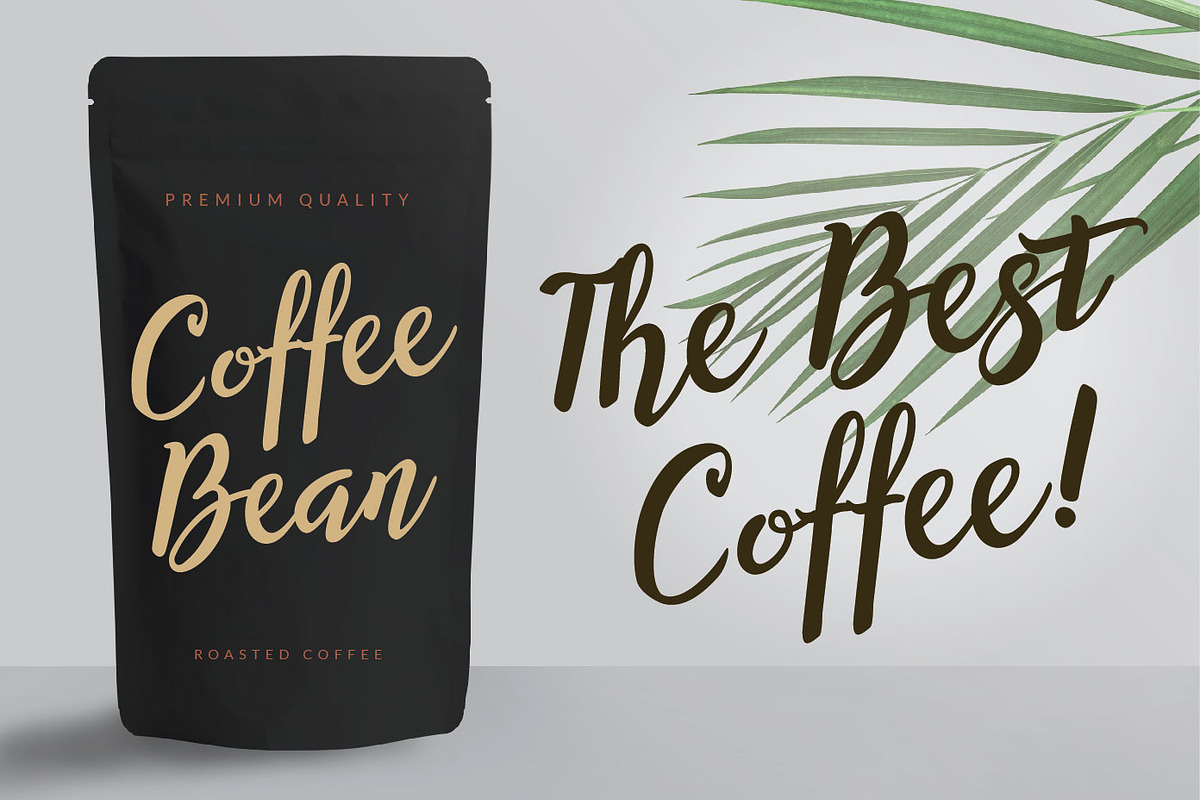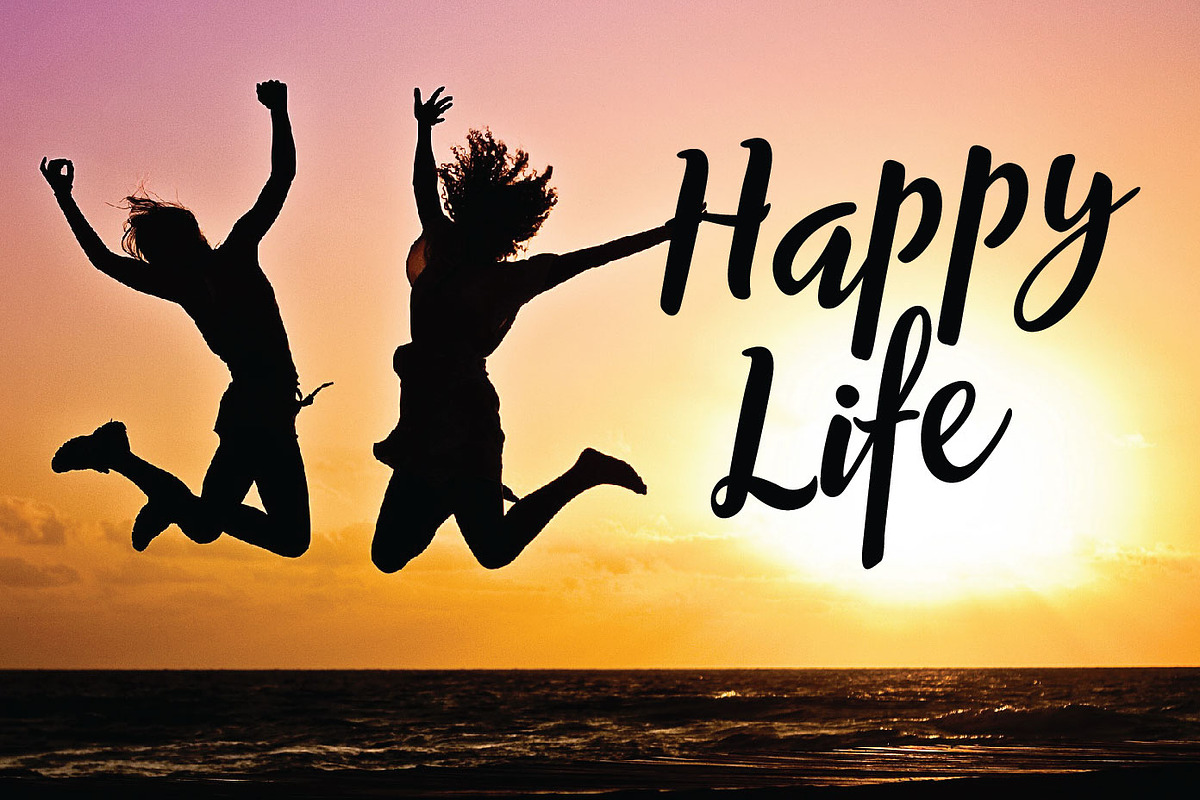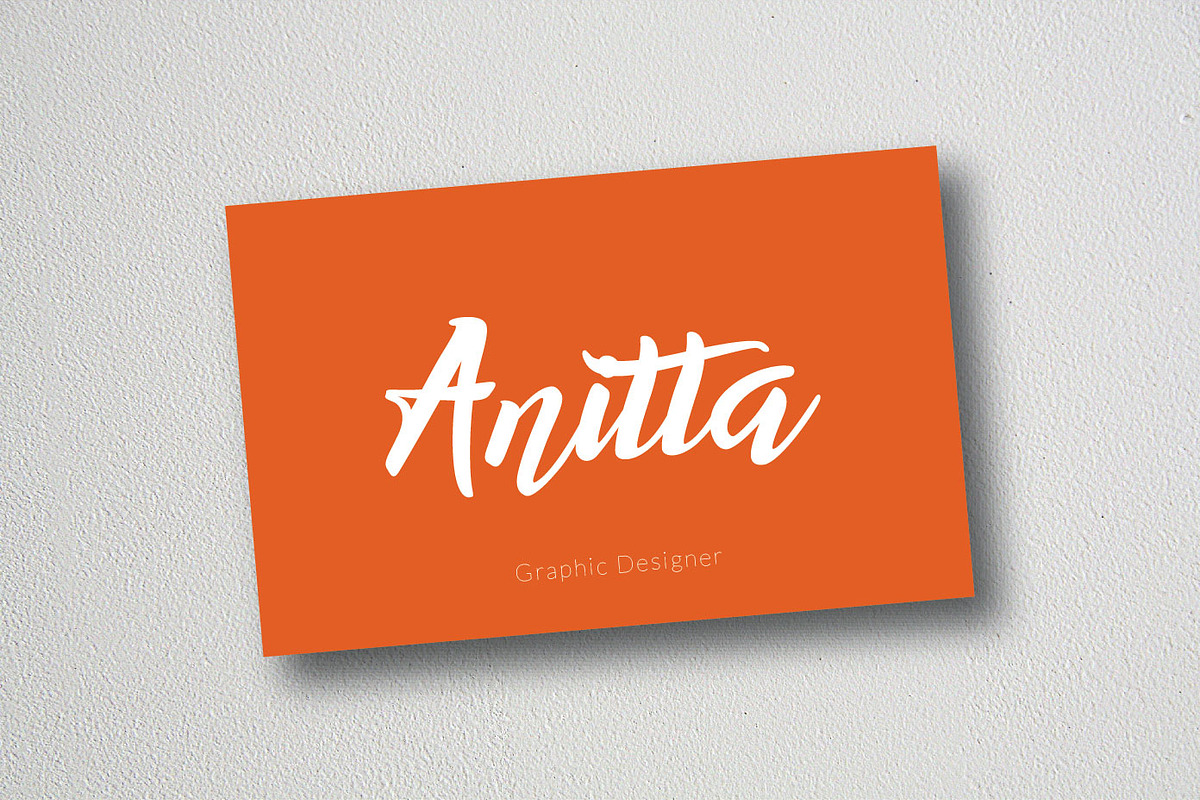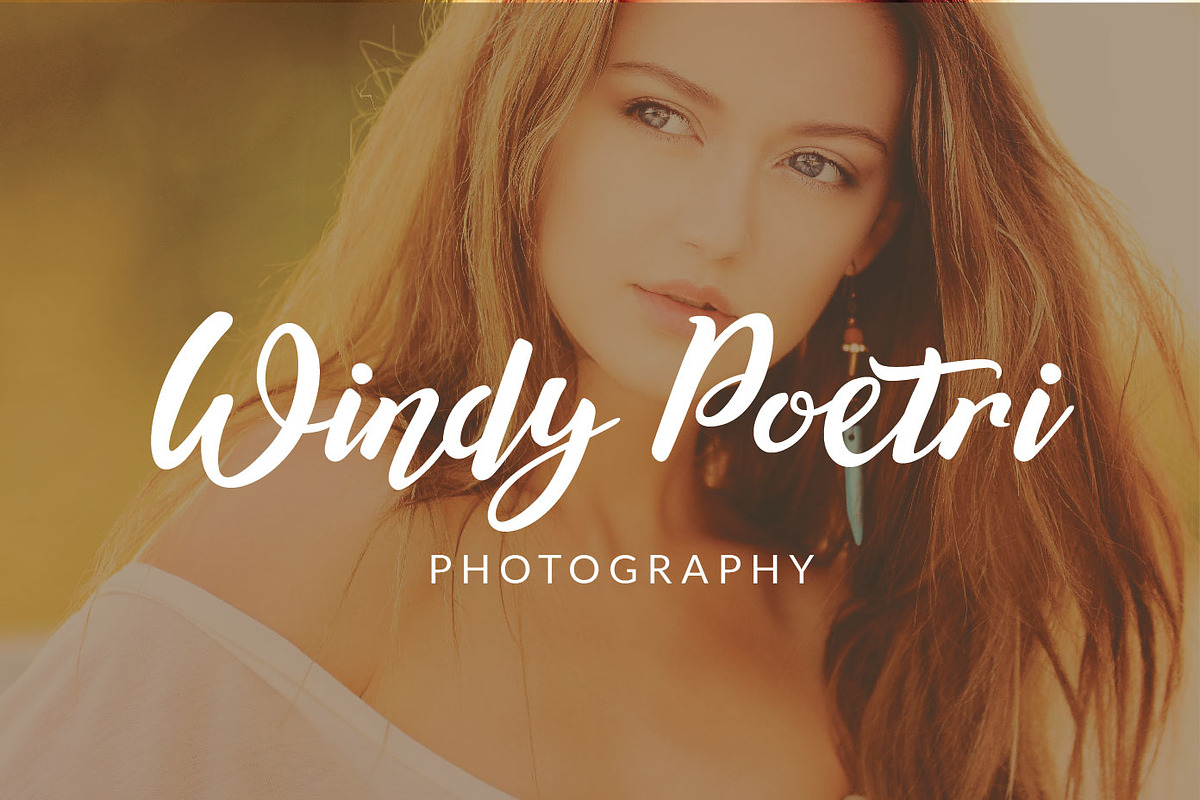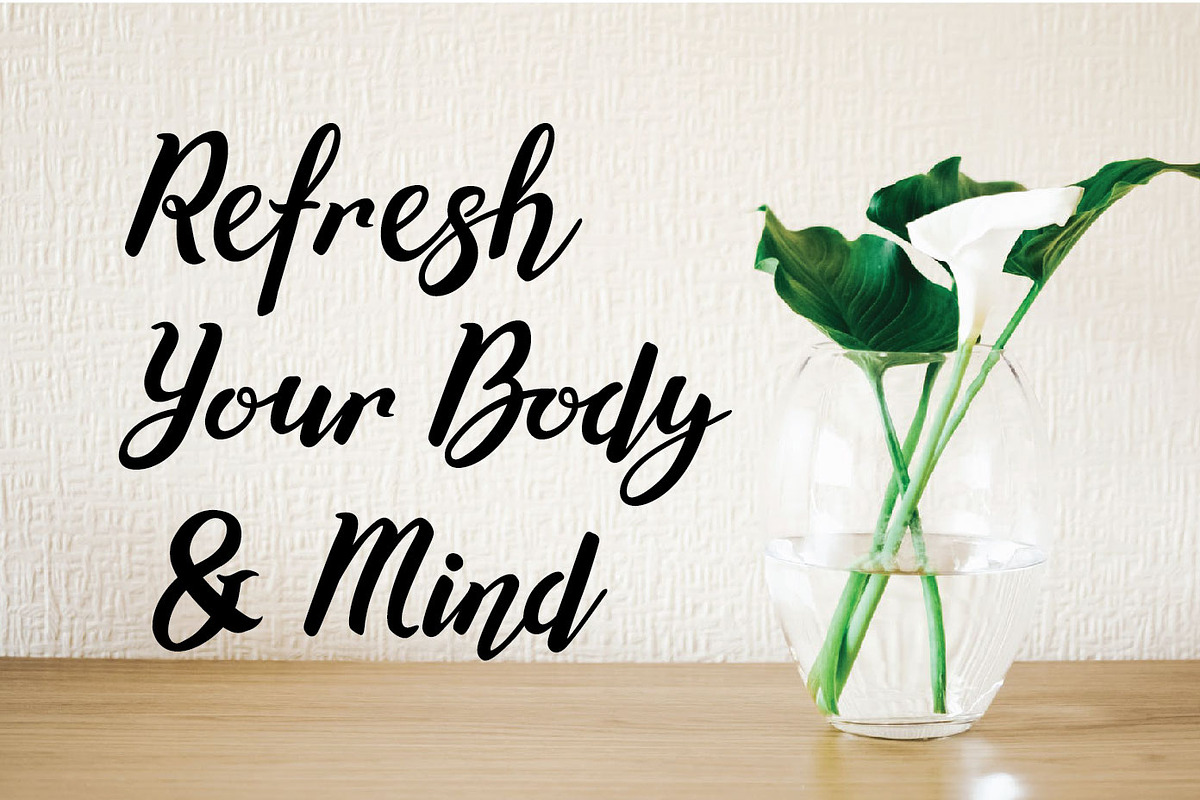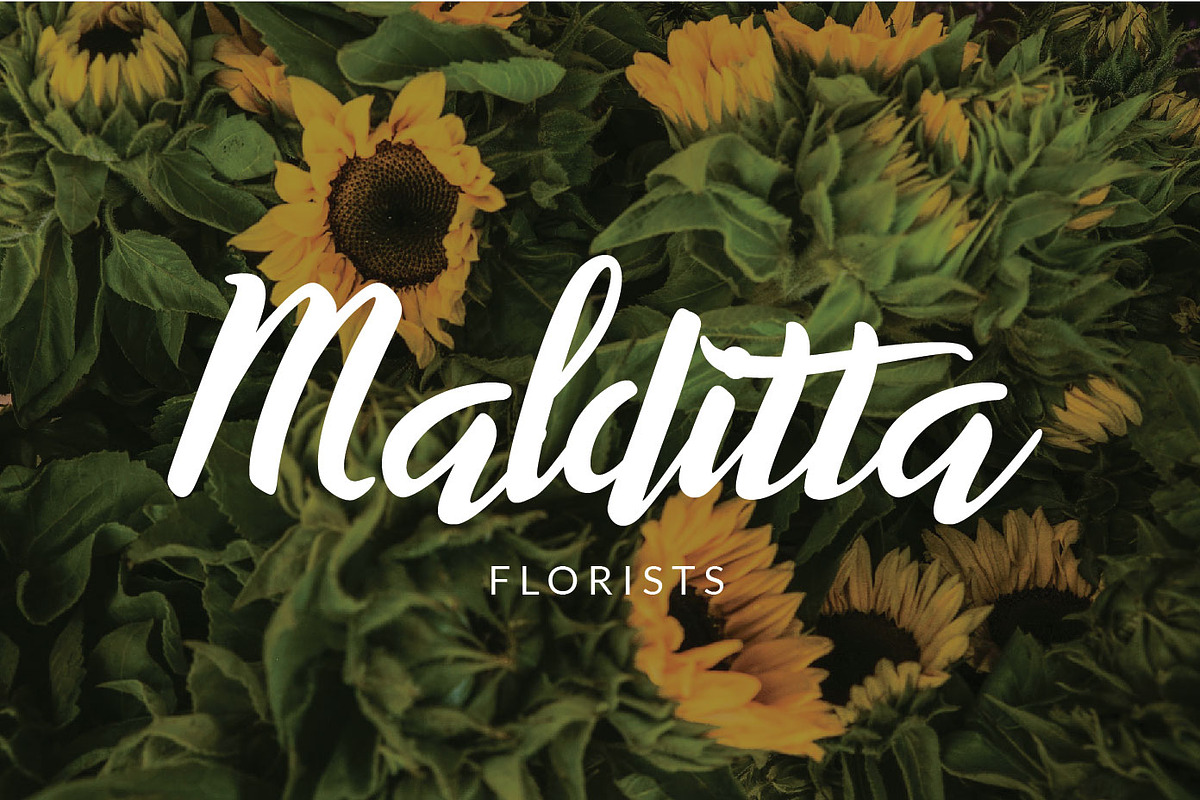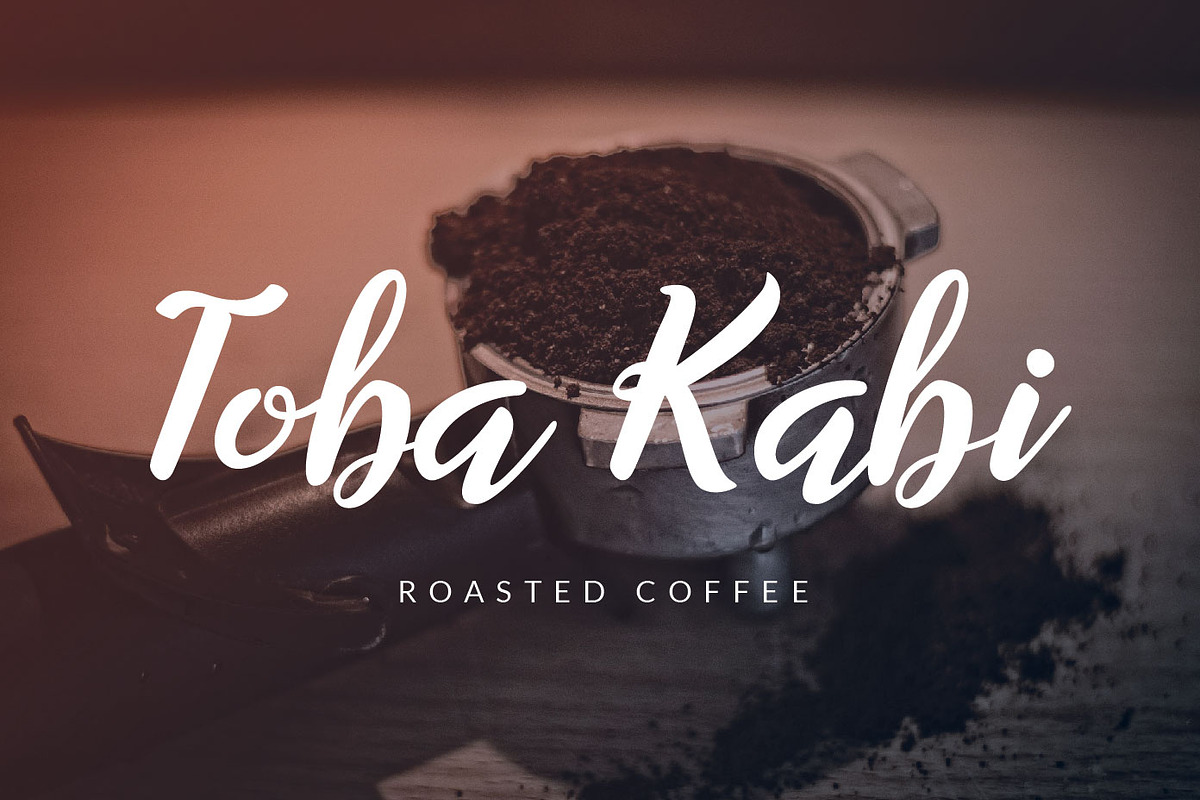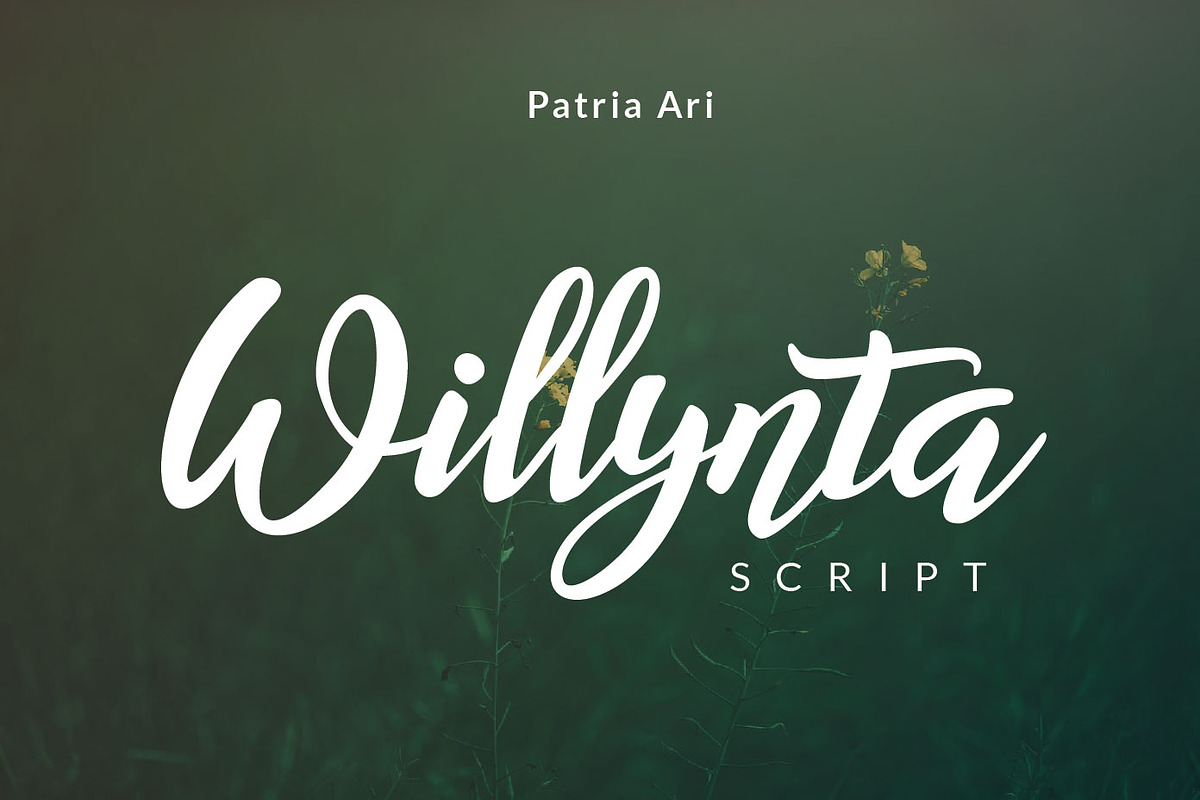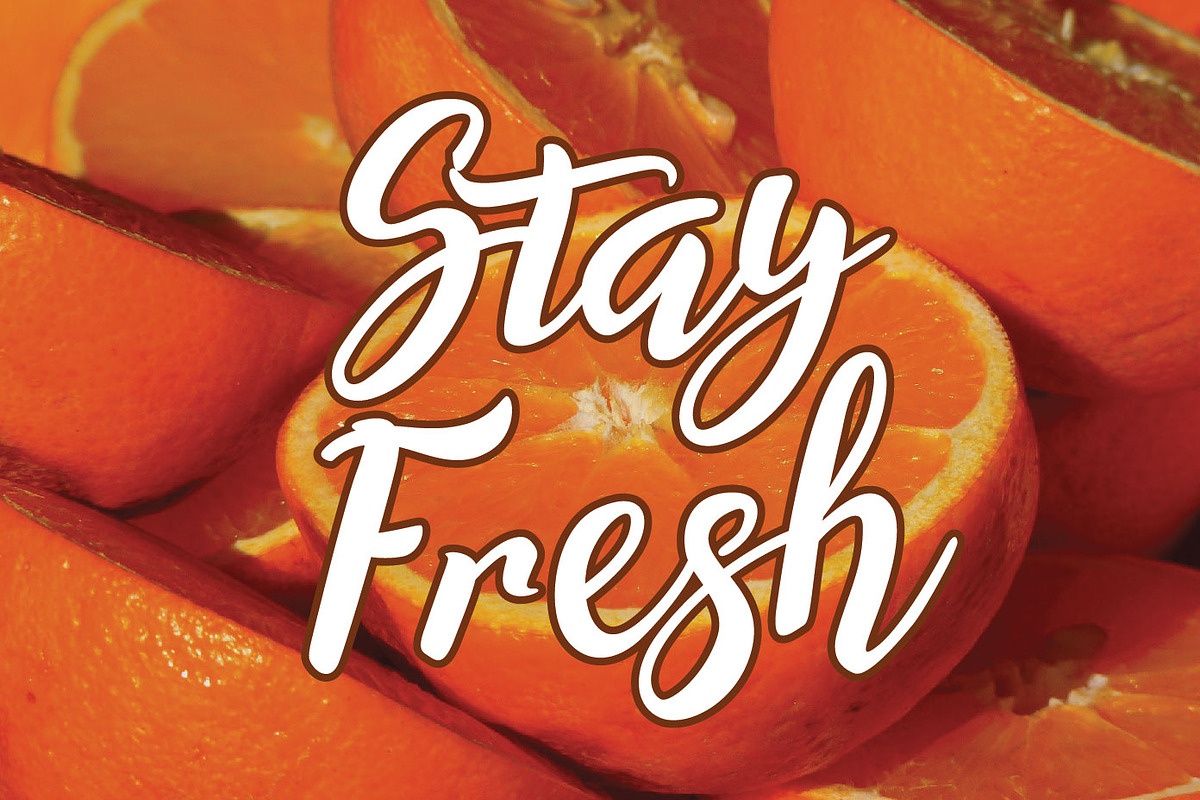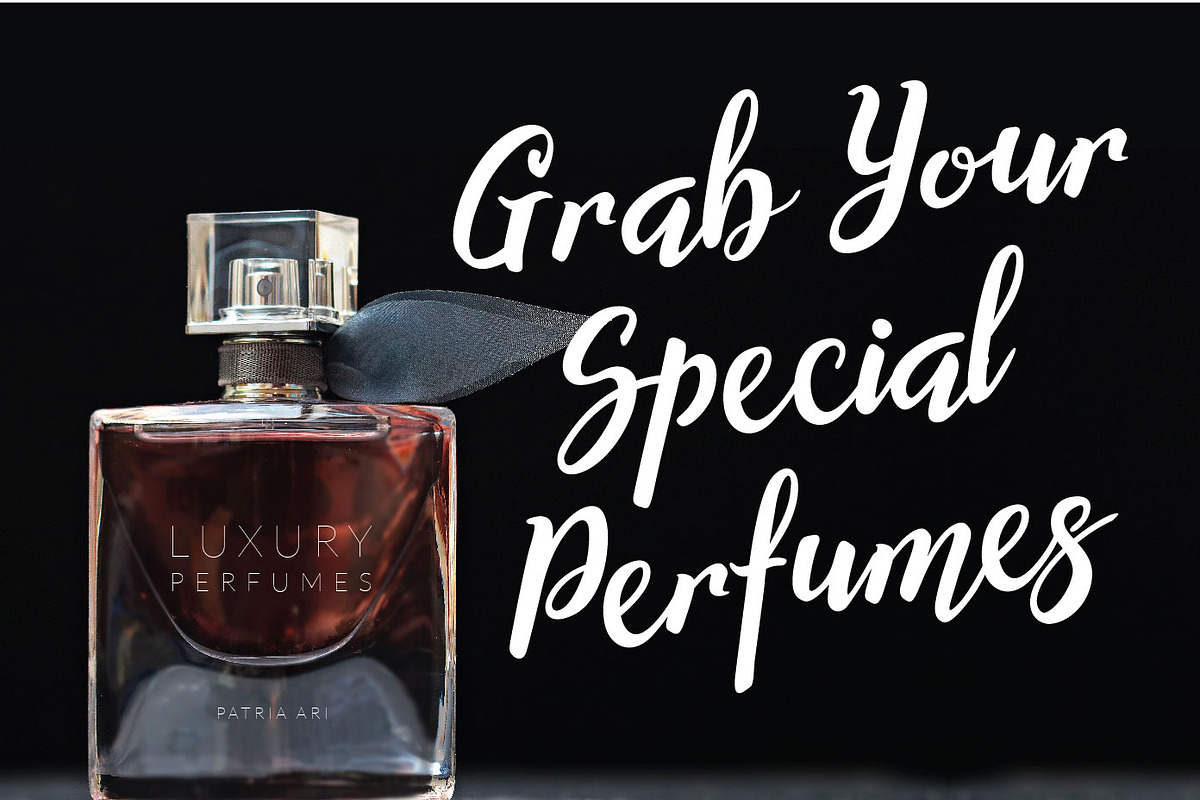
Willynta Script
Introducing, Willynta, a beauty handwritten script with a twist of fun! The natural hand writing script is suitable for you who needs a typeface for headline, logotype, apparel, invitation, branding, packaging, advertising etc.